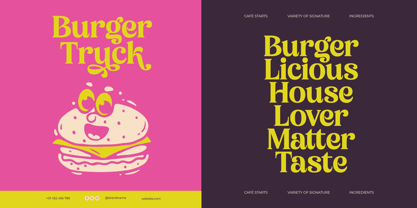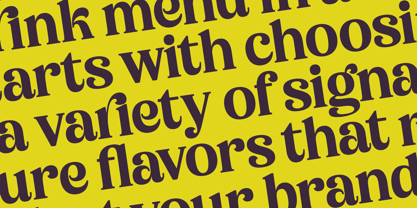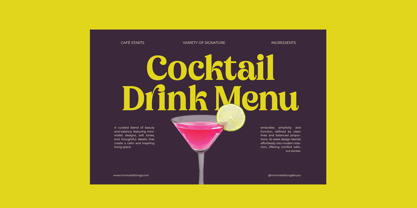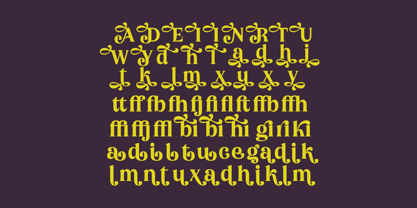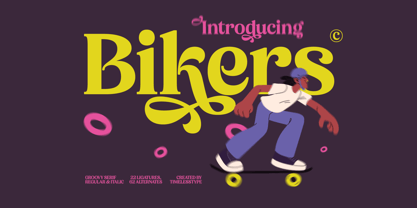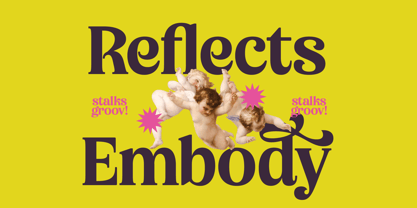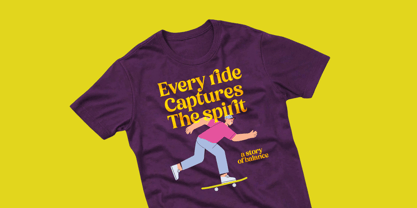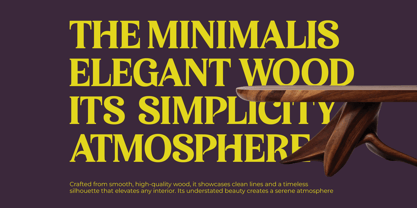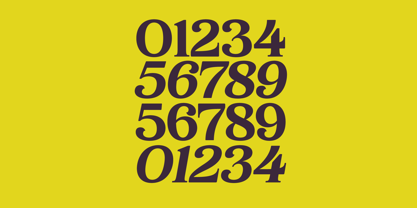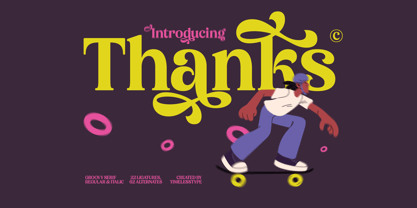
The Bikers Font Family was designed by Heru Utama Putra and published by Timelesstype Studio. Bikers contains 2 styles and family package options. More about this family
Bikers is a groovy serif display font built with bold retro shapes, playful curves, and lively swashes that instantly grab attention. Its chunky serif structure mixed with dynamic movement gives it a fun, youthful personality - perfect for skate culture, streetwear branding, music posters, retro merch, editorial headlines, logo lettering, and anything that needs that nostalgic-but-modern punch.